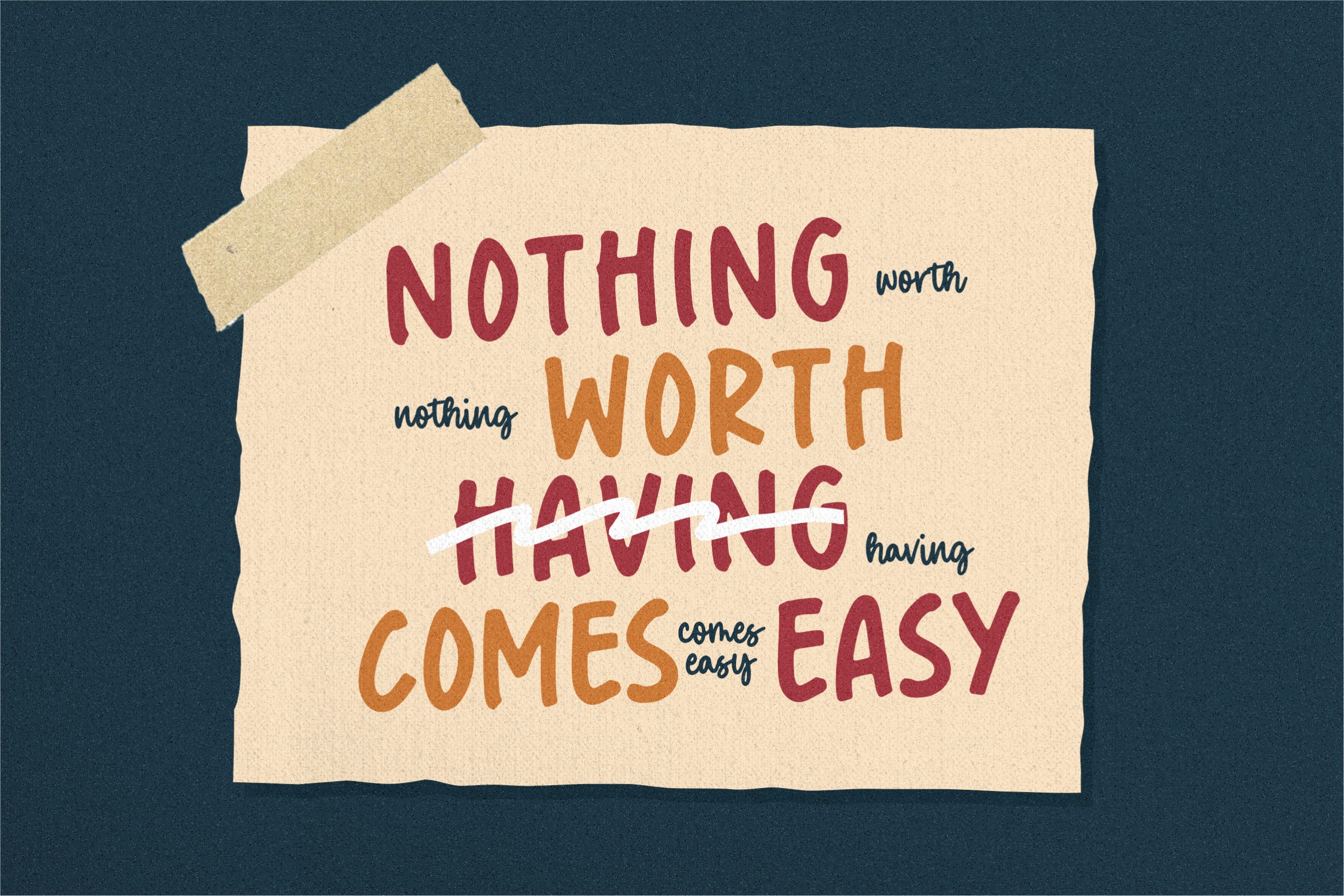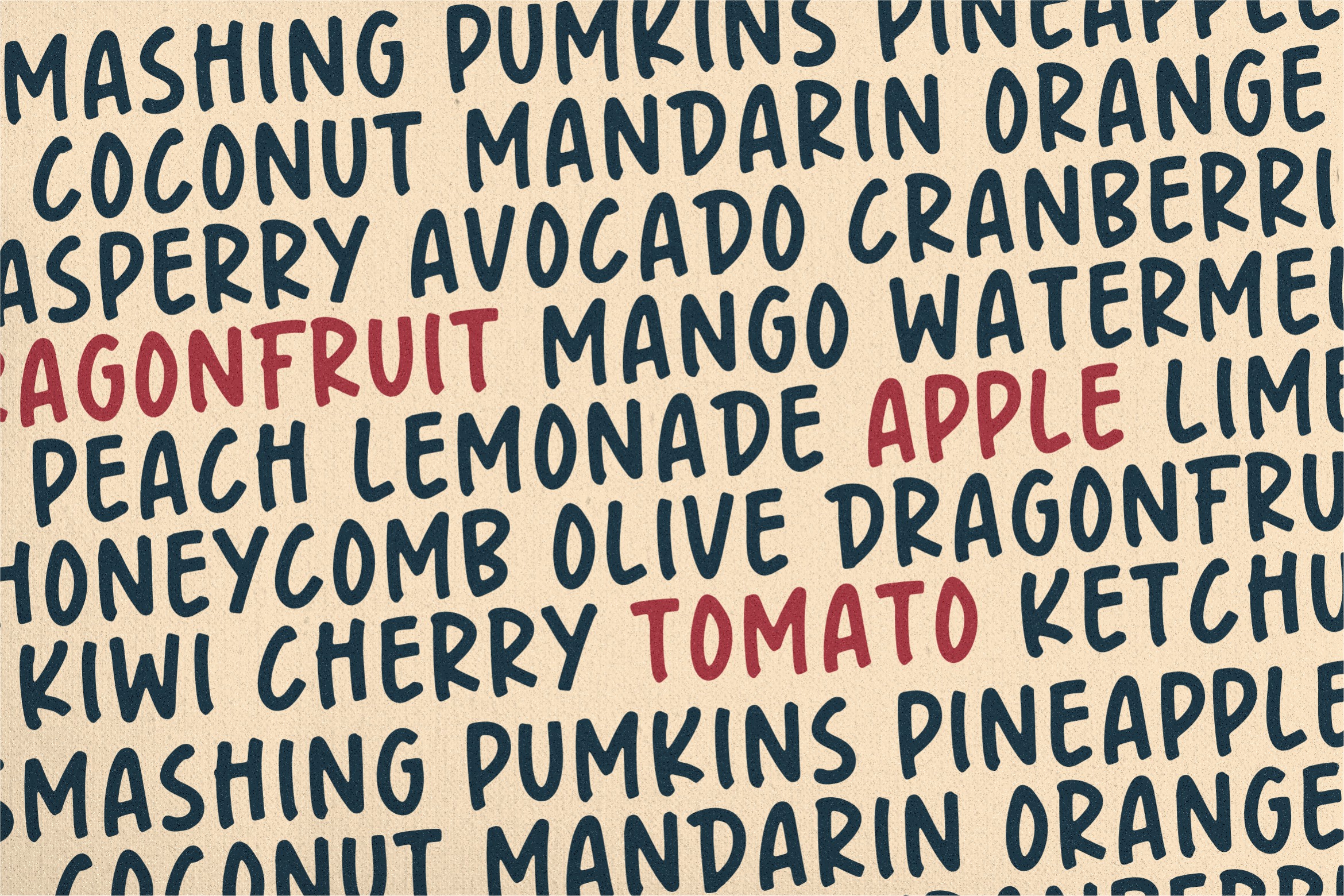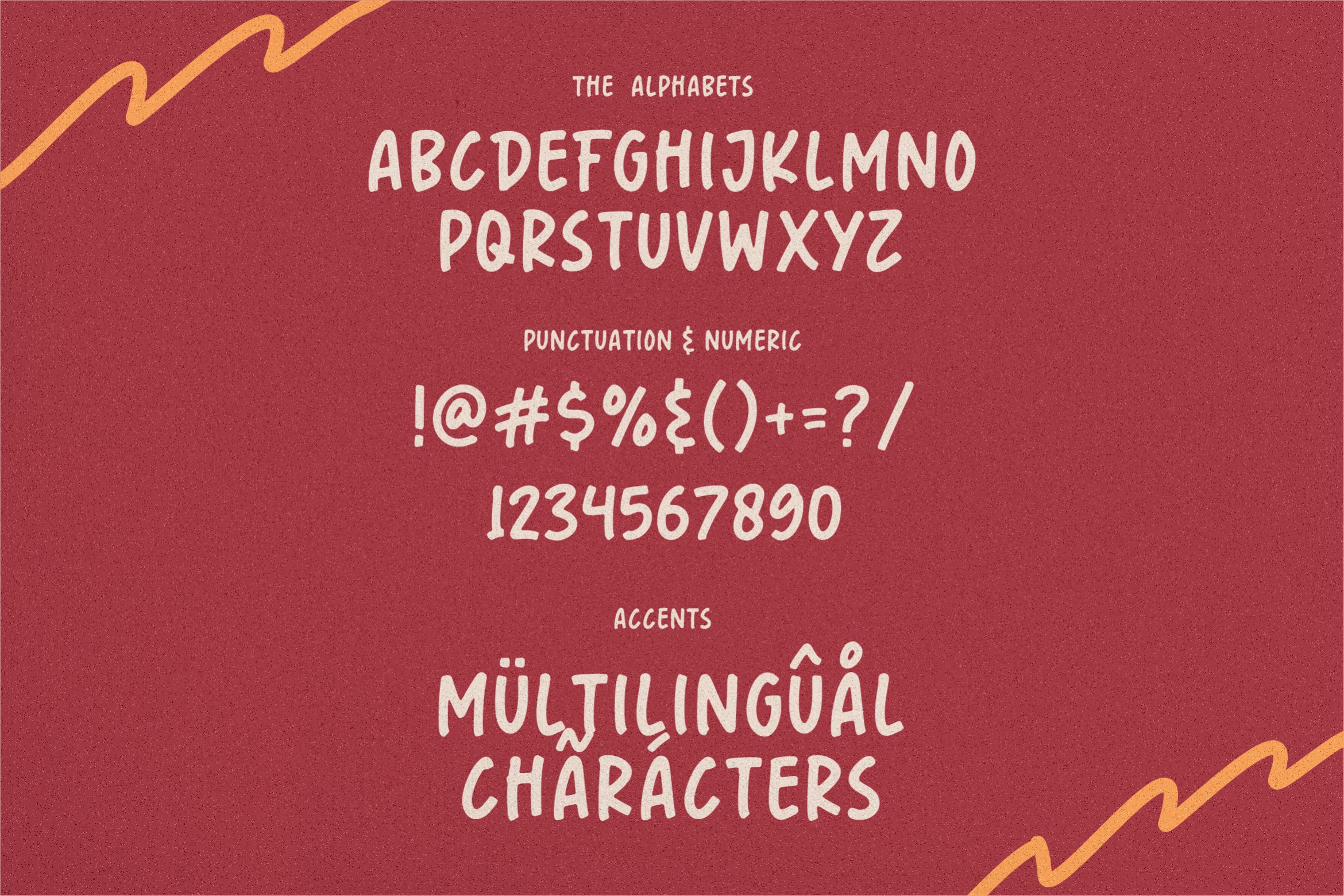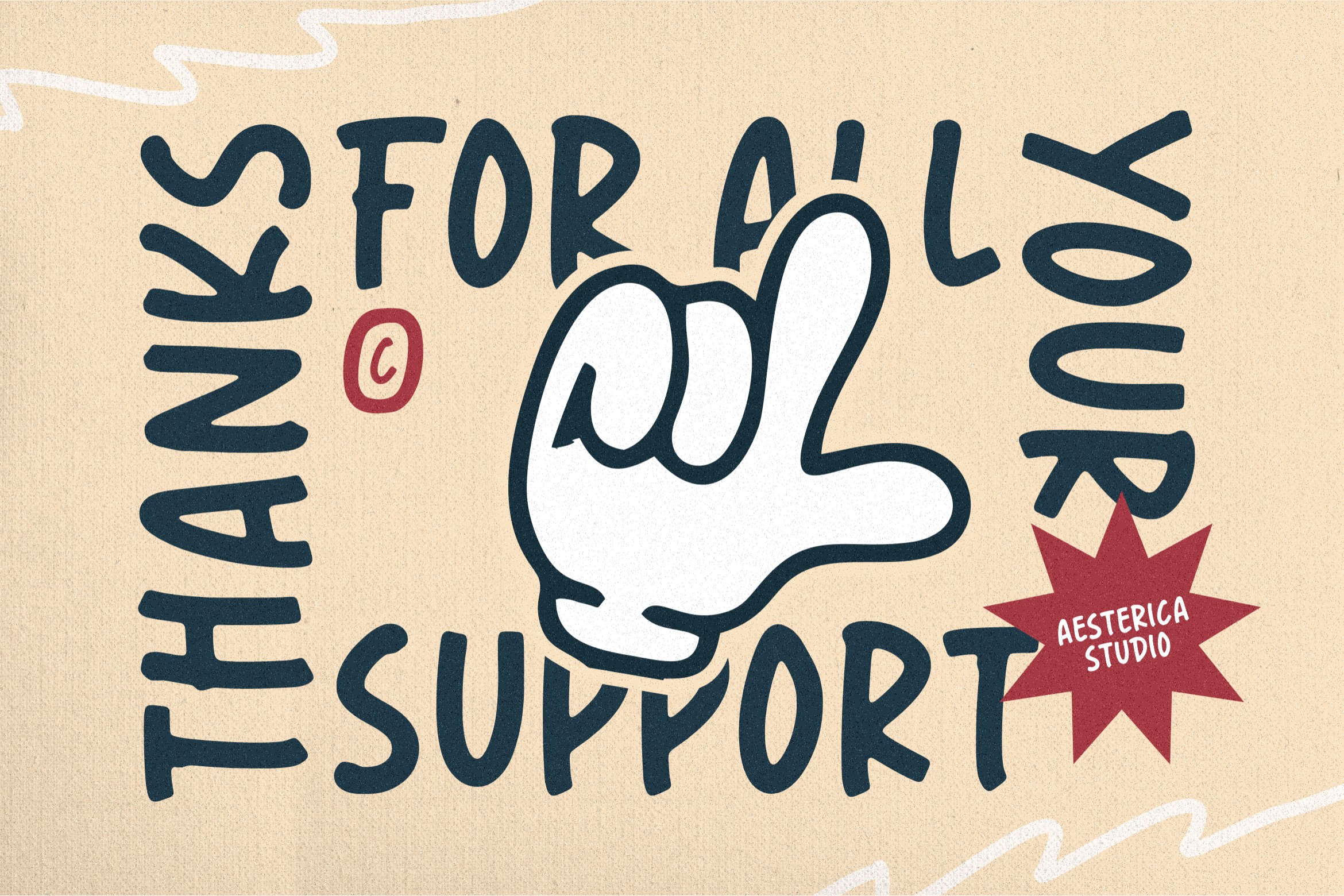
Fourties Font
Fourties Display Font is an elegant bold handbrushed display font with capital letters. With a cool style, it will add a bold and powerful touch to your projects, inspiring you to create something bold too. In addition, this font is also equipped with Alternative Characters, Standard Ligatures, and multi-language support.
Fourties is ideal for headings, flyers, greeting cards, product packaging, book covers, printed quotes, logotypes and album covers.